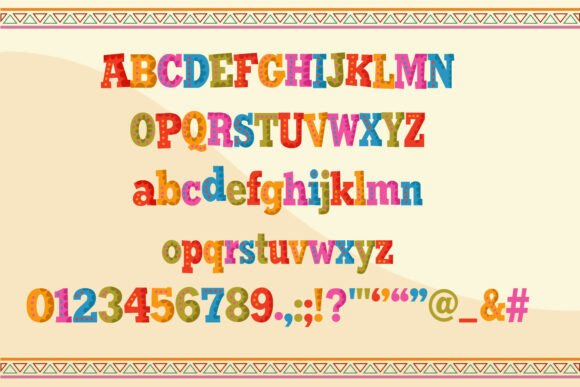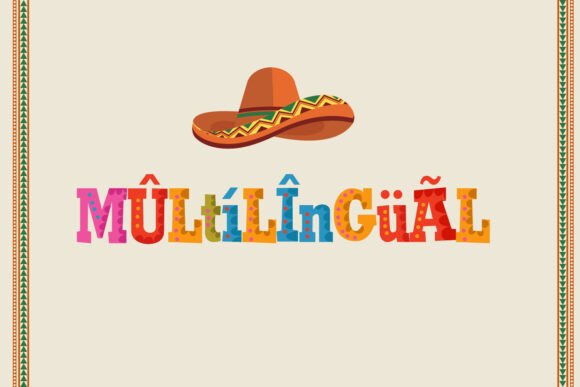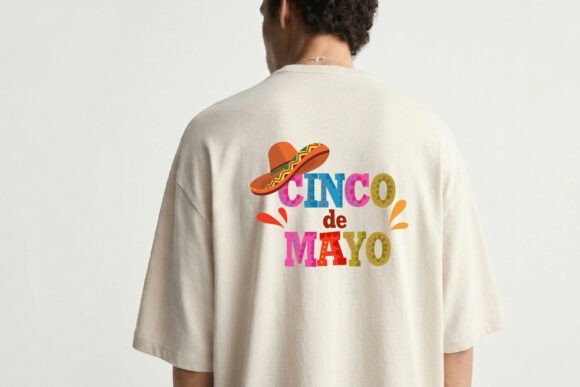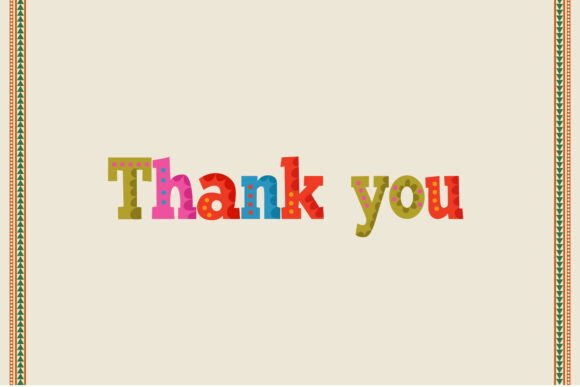
Introduction to Del Carna Font
Del Carna – Colorful Fiesta Display Font Bring the spirit of celebration into your designs with Del Carna, a bold and playful display font inspired by colorful carnival culture, Mexican fiestas, handmade paper banners, and retro festival typography.
Each letter is crafted with unique decorative patterns and vibrant character, making your text feel lively, joyful, and full of personality Perfect for eye-catching headlines, party branding, children’s projects, packaging, posters, social media graphics, and festive merchandise.